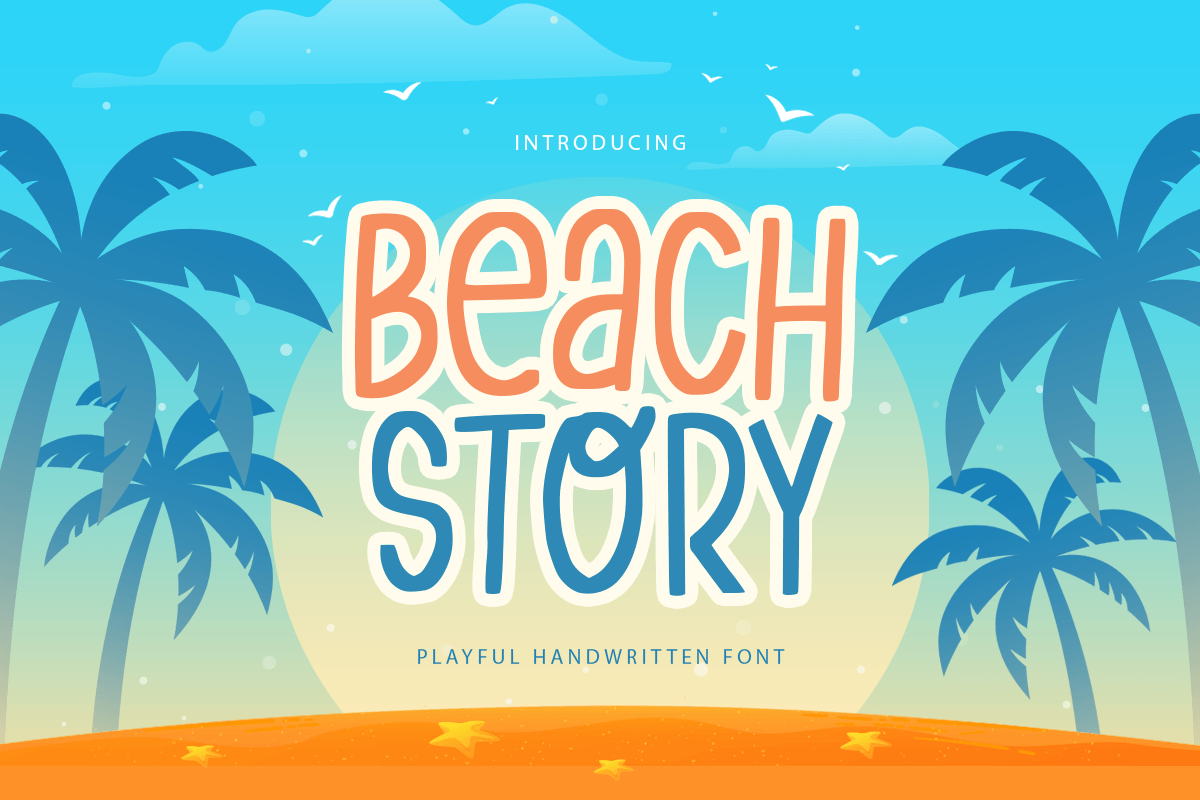
Beach Story
-Playful Handwritten Font
Beach Story is A Playful Handwritten Font that crafted with authentic handwritten feel to specifically show beach theme project. This font perfect for your design projects or just type your words for any needs such as quotes, promotion, and so many more with playful style included.